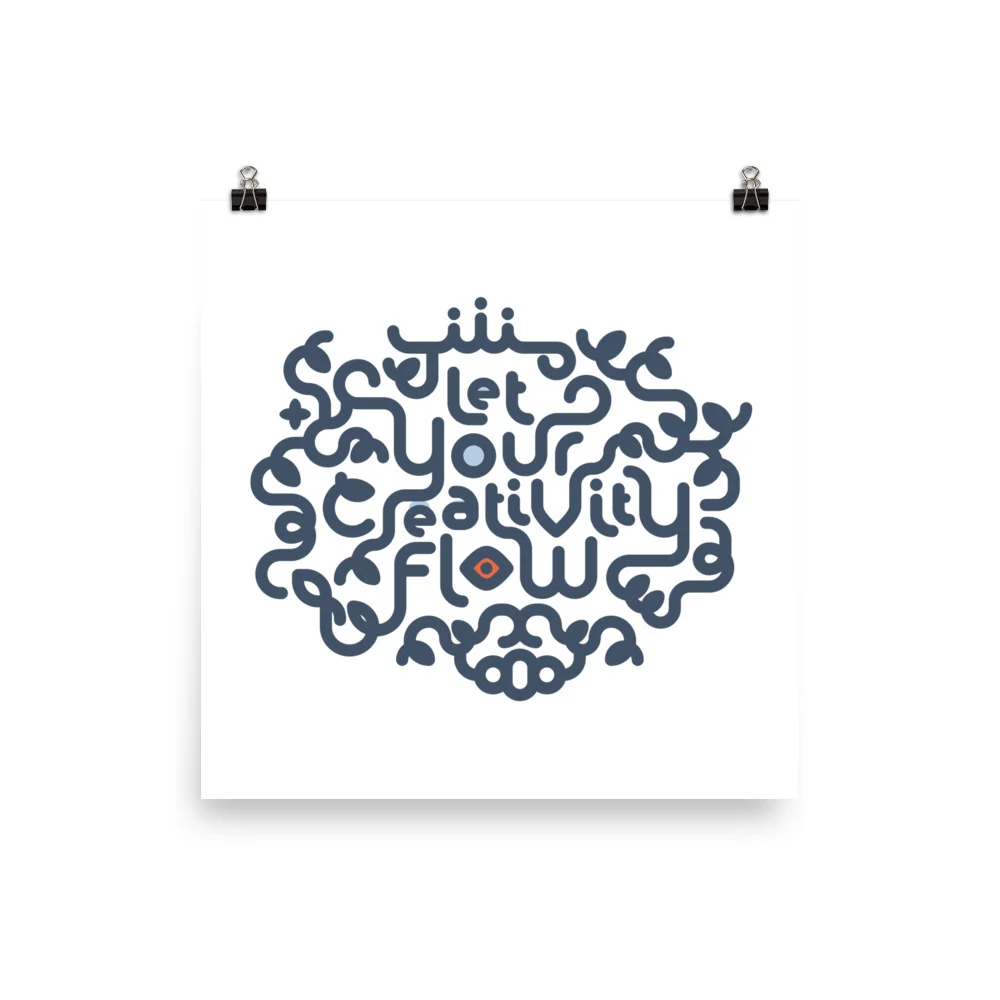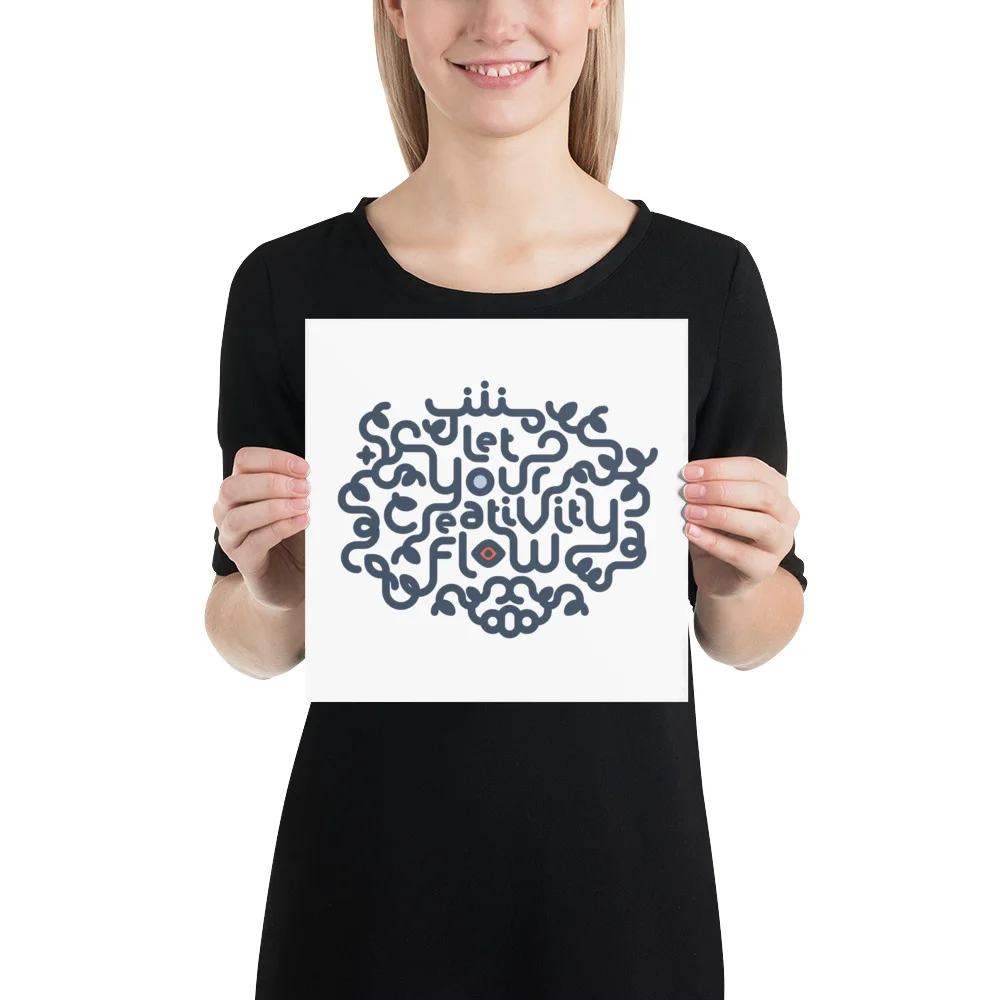
Let Your Creativity Flow Decorative Typography Poster
We created this Let Your Creativity Flow poster with our very own Alio™ Pro+Decor typeface combo. The swirl design exudes a whimsical, contemporary feel. The white background goes with most room environment including your office. Let’s make your creativity flow at its best..